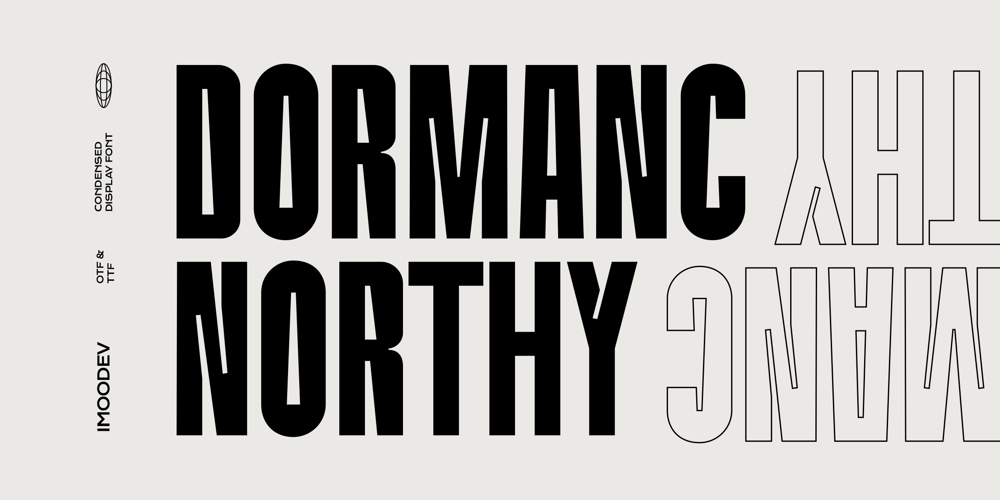
Dormanc Northy Font Family was designed by Aulia Savira Putri and published by Imoodev. Dormanc Northy contains 1 styles and family package options. Dormanc Northy is a modern sans display font that combines simplicity with elegance. With its clean design and balanced proportions, this font gives off a modern and professional feel. Each letter is carefully designed to ensure optimal clarity and legibility. making your work look stunning and attractive.A versatile font that works in both uppercase and lowercase sizes, suitable for a wide variety of projects such as a display font for headings, logotype, invitations, branding, book covers, magazine layouts, card, product packaging, product mockup, mugs, posters, labels, editorials, art deco, headlines, and any type of advertising purpose.